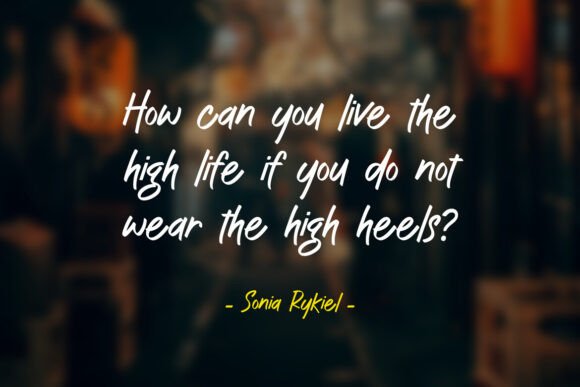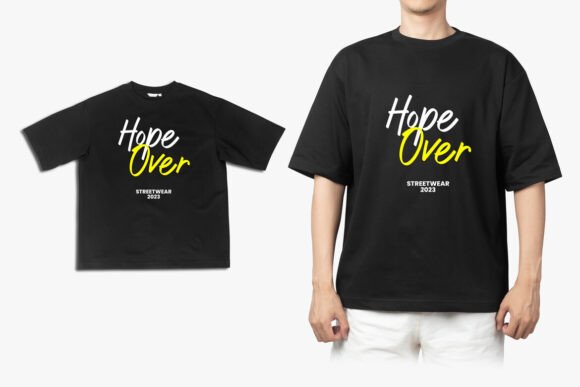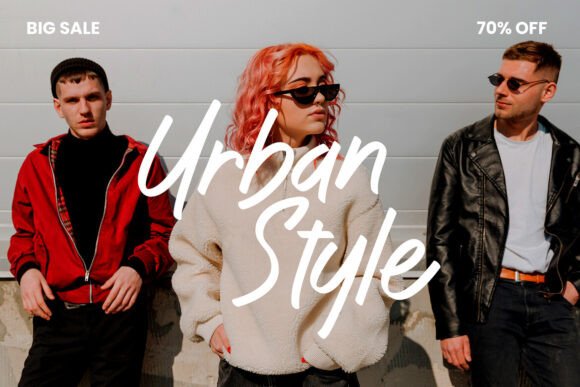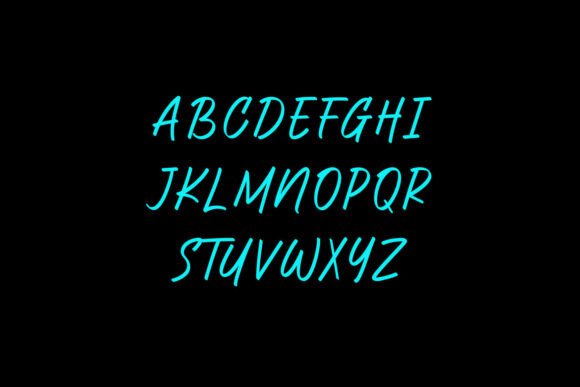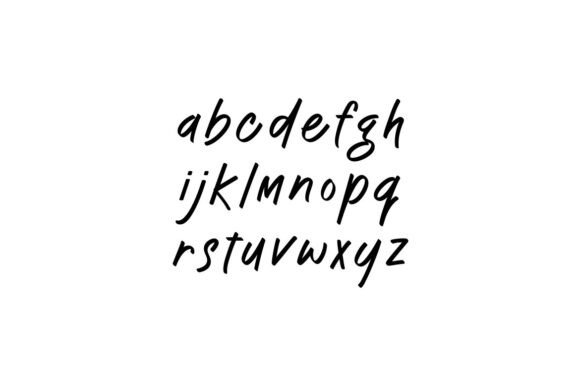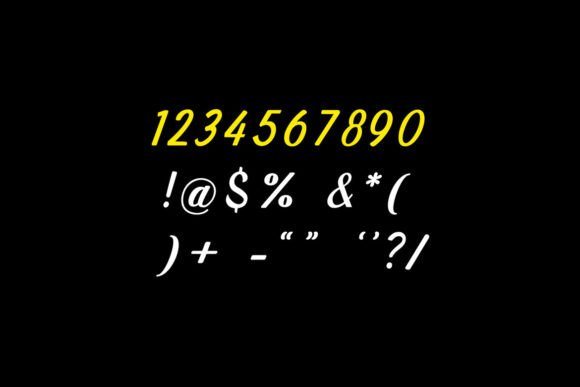
Introducing Domina Urbanite Font: Elevate Your Designs with Luxury and Sophistication
In the world of typography, a font can make or break the visual appeal of a design. For designers and crafters seeking to add a touch of luxury and sophistication to their projects, the Domina Urbanite Font is an exceptional choice. This modern display font is crafted to exude elegance, class, and style, making it perfect for a wide range of applications.
The Essence of Domina Urbanite: A Luxury Display Font
Domina Urbanite is not just a font; it’s a statement piece. Its design is centered around creating a sense of opulence and refinement, which is achieved through its clean lines, balanced proportions, and meticulous attention to detail. This font is tailored for projects that demand a high level of sophistication, such as luxury branding, high-end product packaging, and editorial designs that aim to convey a sense of exclusivity.
One of the standout features of Domina Urbanite is its versatility. This font is ideally suited for a multitude of projects, including:
- Signature and Stationery: Add a personal touch of elegance to your correspondence and documents.
- Logo Design: Create memorable and impactful logos that convey luxury and sophistication.
- Wedding and Event Design: Elevate wedding invitations, programs, and event branding to a new level of classiness.
- Typography Quotes: Showcase inspiring quotes with a stylish and elegant flair.
- Magazine or Book Covers: Capture the essence of your publication with a cover that exudes style and sophistication.
- Website Headers: Make a lasting impression with website headers that are both stylish and elegant.
- Branding: Perfect for brands aiming to project an image of luxury, elegance, and class.
Balancing Masculine and Feminine Qualities
Domina Urbanite strikes a perfect balance between masculine and feminine qualities, making it an excellent choice for fashion-related branding or editorial designs. This balance ensures that the font appeals to a broad audience and can be seamlessly integrated into various design contexts, from haute couture to lifestyle editorials.
Why Choose Domina Urbanite Font?
Choosing Domina Urbanite for your design projects comes with several advantages:
- Elegance: It brings an unparalleled level of elegance to your designs.
- Versatility: Suitable for a wide range of projects, from digital to print.
- Uniqueness: Stands out from more commonly used fonts, giving your designs a distinctive look.
- Legibility: Despite its elegant and luxurious feel, it maintains high legibility across various sizes and applications.
Domina Urbanite Font is a powerful tool for designers and crafters looking to infuse their projects with a sense of luxury, elegance, and sophistication. Its modern design, versatility, and balanced qualities make it an excellent addition to any designer’s toolkit. Whether you’re working on a luxury brand, a fashion editorial, or simply looking to elevate your design game, Domina Urbanite is poised to make a significant impact.
With Domina Urbanite, you don’t just choose a font; you adopt a design statement that speaks of class, style, and an unwavering attention to detail. Make your designs tell a story of luxury and sophistication with Domina Urbanite Font.